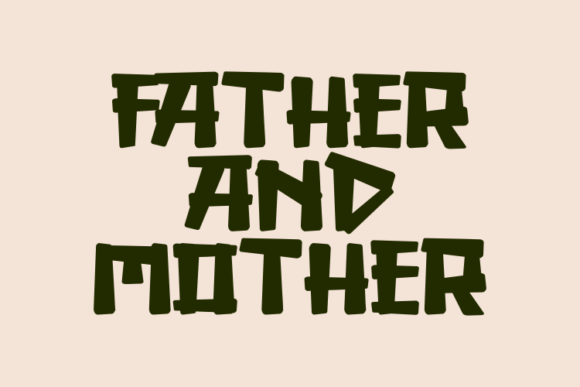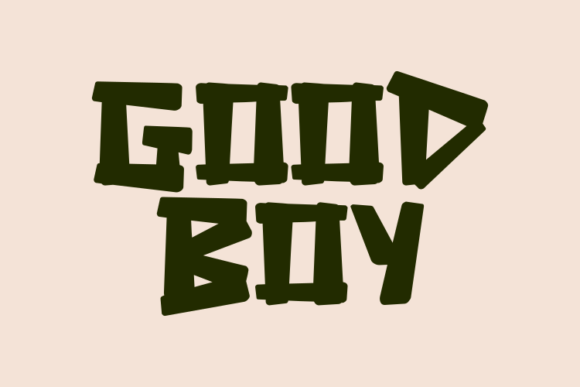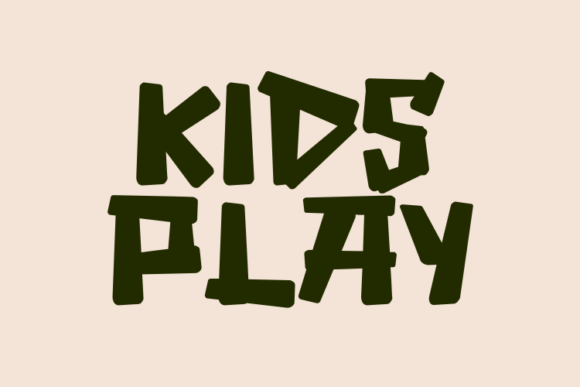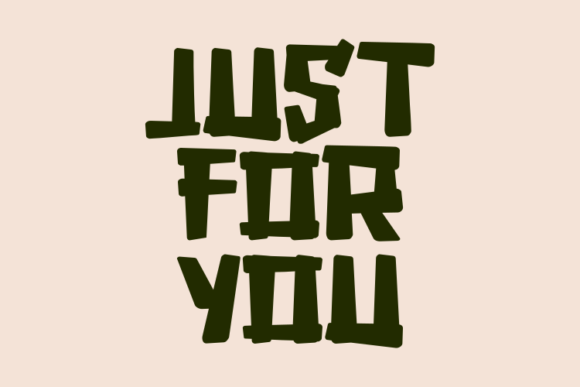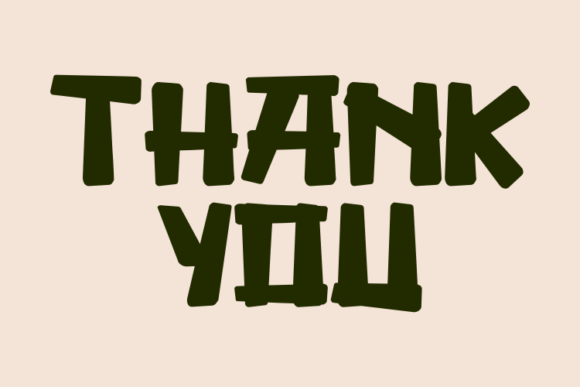
Dino Craft Font: The Ultimate Display Font for Unique Designs
Are you tired of using the same old fonts for your designs? Do you want to add a touch of quirkiness and personality to your creations? Look no further than the Dino Craft Font! This bold, chunky lettered, and quirky display font is perfect for designers and crafters who want to make their designs stand out from the crowd.
What is Dino Craft Font?
Dino Craft Font is a unique and original display font that is designed to add a playful and friendly touch to your designs. Its bold and chunky letters make it perfect for headlines, titles, and any other text that needs to grab attention. The font’s quirky and irregular shape gives it a hand-drawn feel that is both charming and eye-catching.
Key Features of Dino Craft Font
- Bold and Chunky Letters: The Dino Craft Font features bold and chunky letters that are perfect for making a statement.
- Quirky and Irregular Shape: The font’s quirky and irregular shape gives it a unique and playful feel.
- Friendly and Approachable: The font’s friendly and approachable design makes it perfect for designs that need to convey a sense of fun and personality.
- Incredibly Original: The Dino Craft Font is an incredibly original font that will add a touch of uniqueness to your designs.
Why Use Dino Craft Font?
So, why should you use the Dino Craft Font for your designs? Here are just a few reasons:
- Stand Out from the Crowd: The Dino Craft Font is a unique and original font that will make your designs stand out from the crowd.
- Add Personality to Your Designs: The font’s quirky and playful design will add a touch of personality to your designs.
- Perfect for Headlines and Titles: The font’s bold and chunky letters make it perfect for headlines and titles.
- Easy to Read: Despite its bold and chunky design, the Dino Craft Font is easy to read, even at smaller sizes.
How to Use Dino Craft Font
Using the Dino Craft Font is easy! Here are a few tips:
- Use it for Headlines and Titles: The font’s bold and chunky design makes it perfect for headlines and titles.
- Pair it with Other Fonts: The Dino Craft Font pairs well with other fonts, so feel free to experiment with different combinations.
- Use it for Branding and Marketing Materials: The font’s unique and playful design makes it perfect for branding and marketing materials.
- Experiment with Different Colors and Textures: The Dino Craft Font looks great in a variety of colors and textures, so don’t be afraid to experiment.
Who is Dino Craft Font for?
The Dino Craft Font is perfect for:
- Designers: The font’s unique and playful design makes it perfect for designers who want to add a touch of personality to their creations.
- Crafters: The font’s bold and chunky design makes it perfect for crafters who want to add a touch of quirkiness to their projects.
- Small Business Owners: The font’s friendly and approachable design makes it perfect for small business owners who want to add a touch of personality to their branding and marketing materials.
In conclusion, the Dino Craft Font is a unique and original display font that is perfect for designers and crafters who want to add a touch of quirkiness and personality to their creations. Its bold and chunky letters, quirky and irregular shape, and friendly and approachable design make it perfect for headlines, titles, and any other text that needs to grab attention. So why not give it a try and see how it can elevate your designs?